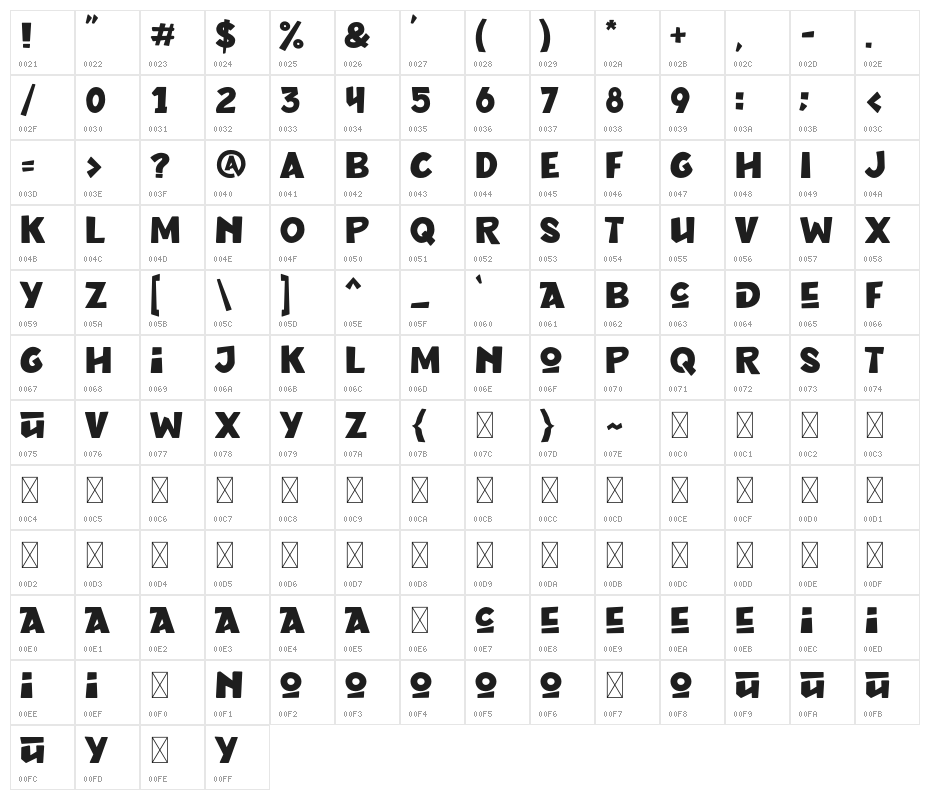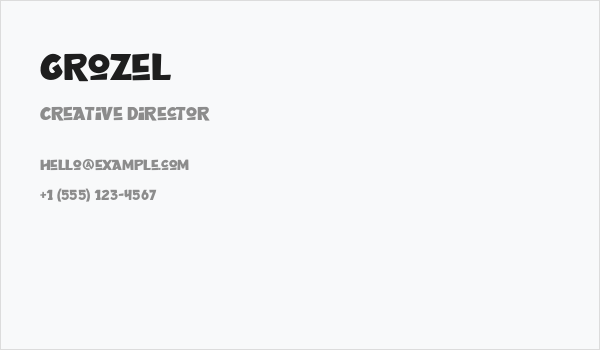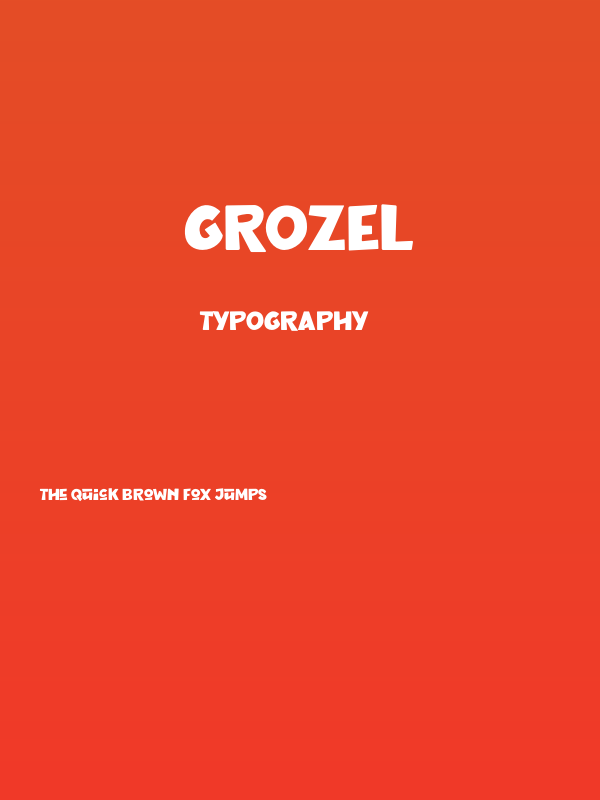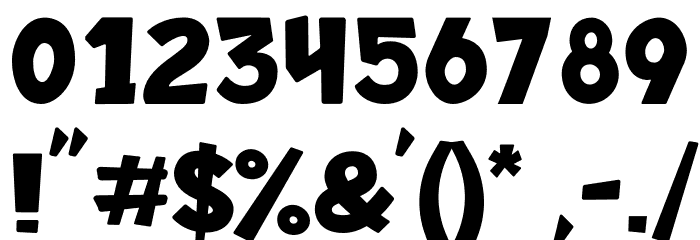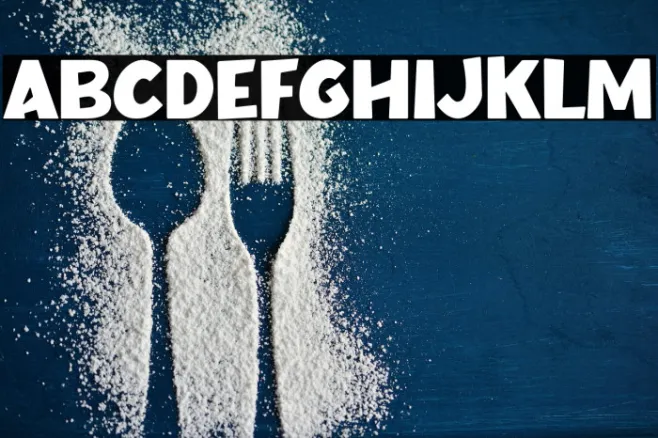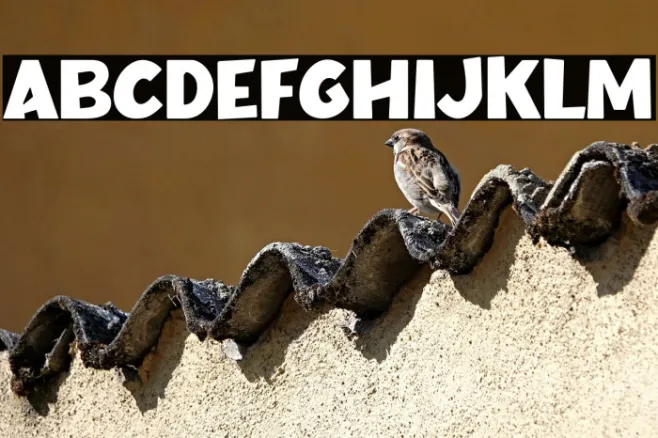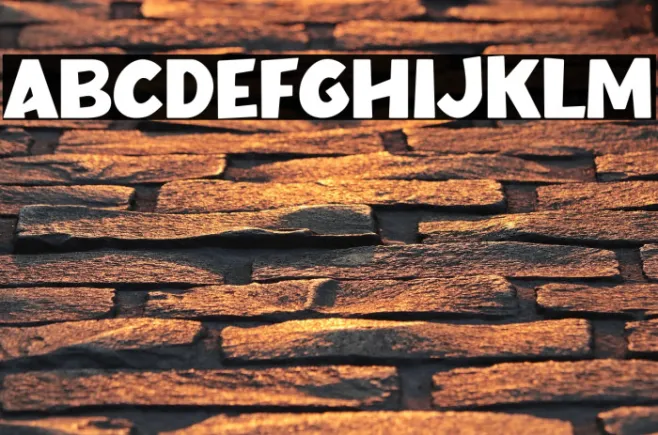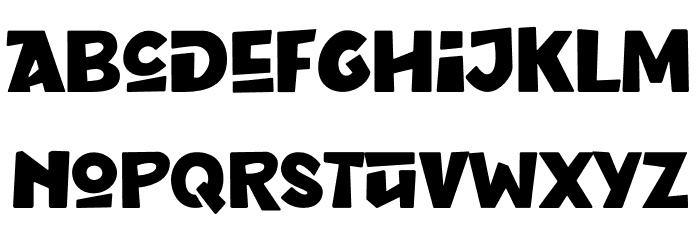
Grozel Font
Grozel Description
This font exhibits a bold and playful style with a distinctly chunky appearance. The characters are designed with a sense of movement and energy, featuring exaggerated curves and angles that create a dynamic visual impact. The uppercase letters are particularly striking, with a strong presence that commands attention. The numbers and special characters maintain the same boldness, ensuring consistency across all elements. This font is ideal for projects that require a fun and engaging aesthetic, making it perfect for children's books, playful branding, or eye-catching headlines.
| Overall Style | Playful, Dynamic |
| Proposed Projects | Children's books, playful branding, eye-catching headlines, posters, and event flyers. |